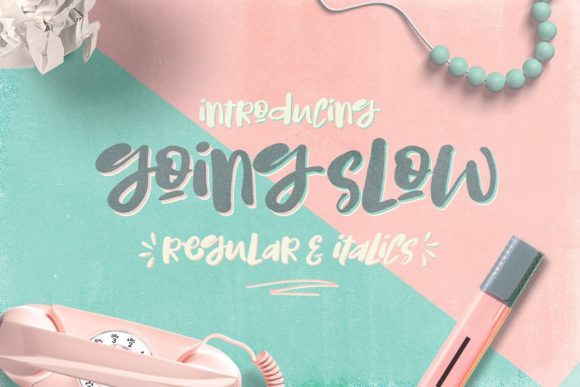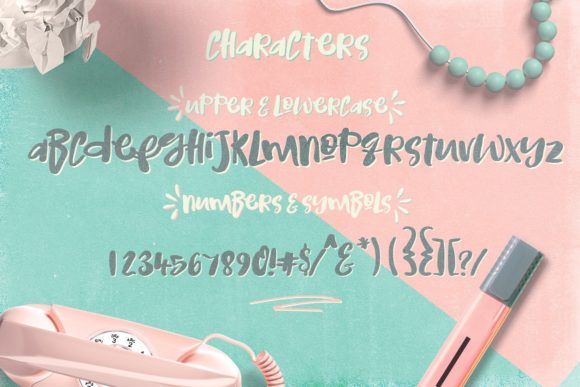
Going Slow Font
About Going Slow Font
The Going Slow is a brand new mixed upper and lowercase font. It comes in a regular and italic style which gives you the opportunity to create multiple unique designs in an instant.